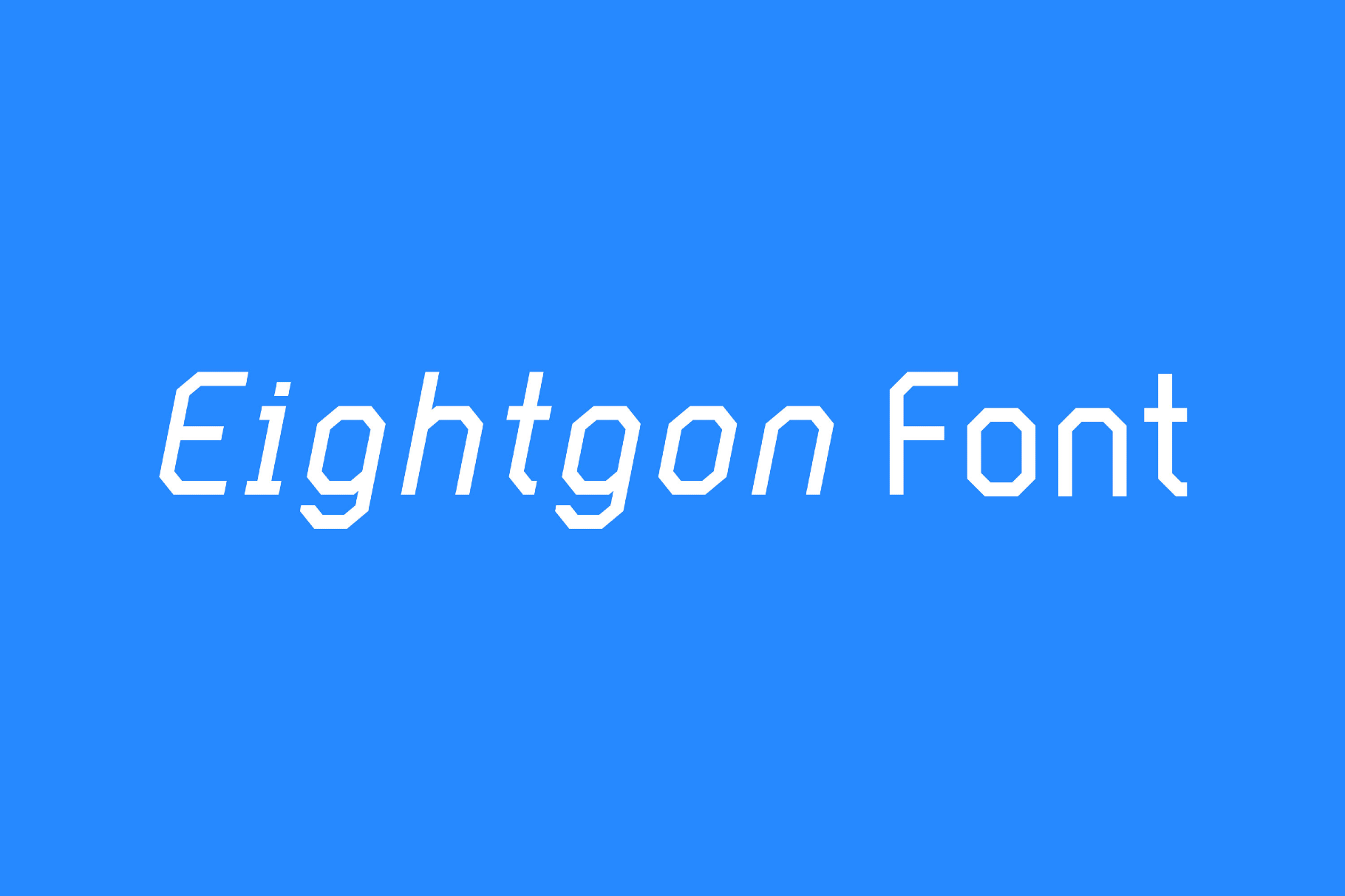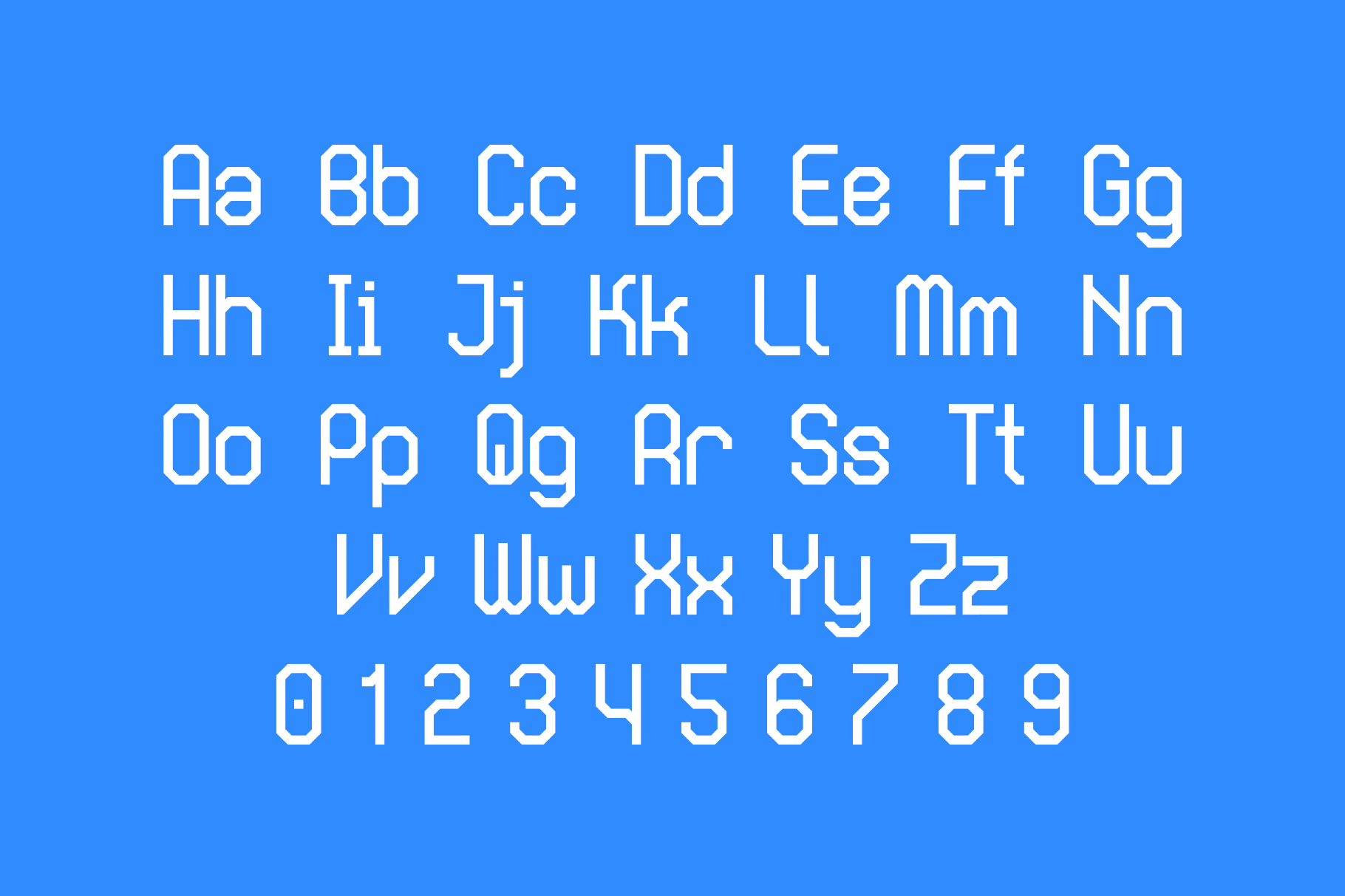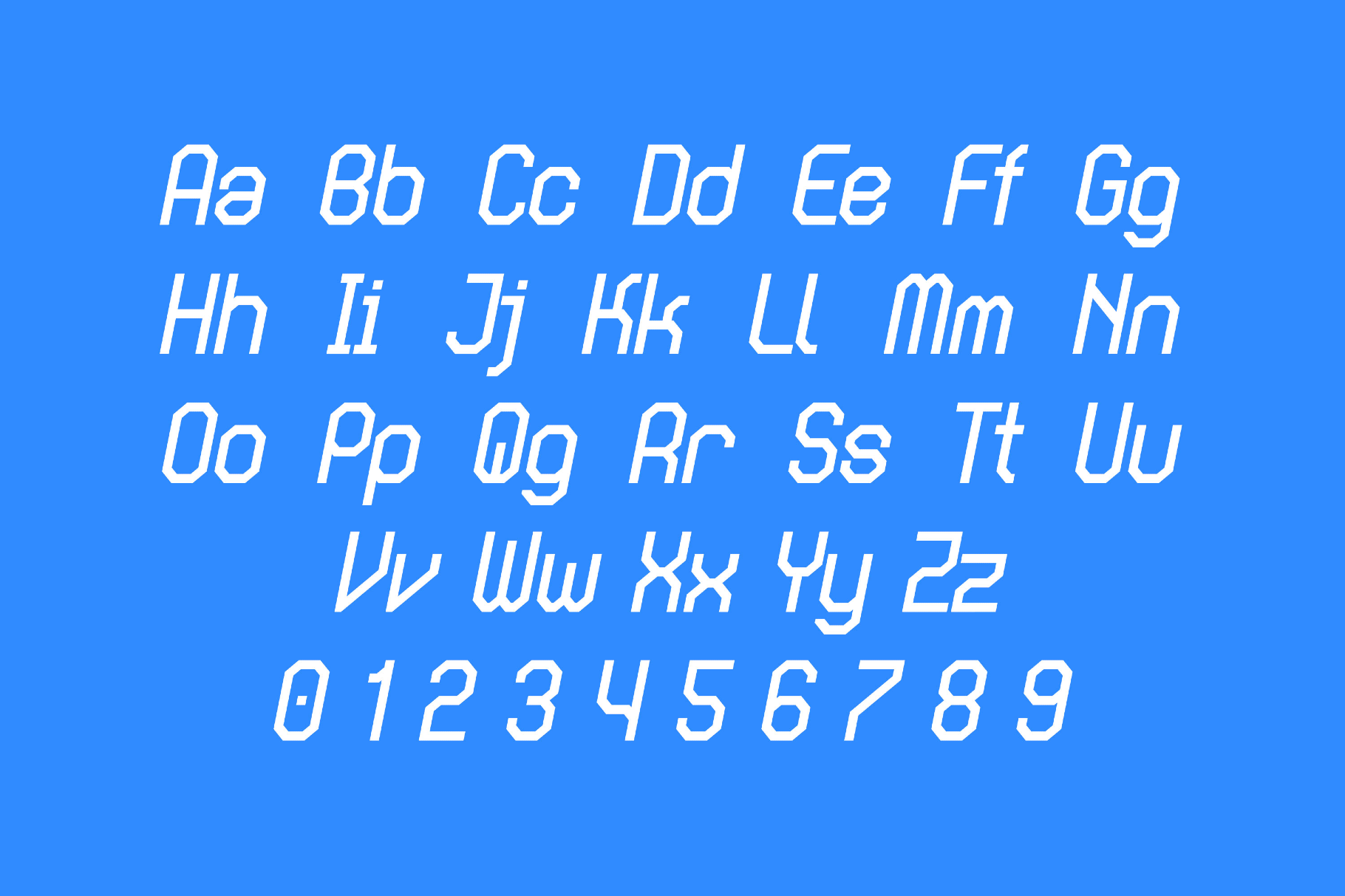
Eightgon TECH Font
Eightgon
Eightgon features sharp octagonal cuts, clean lines, and rigid geometry. And it appears as if it were designed inside an arcade machine. It has a near-future control panel vibe that aligns well with game titles, logos, tech branding, motion frames, poster headlines, album artwork, interface graphics, and cinematic title cards.
- 2 styles: Regular and Italic;
- uppercase and lowercase letters;
- numbers, punctuation, dingbats, and symbols;
- multilingual support across an extended Latin script.